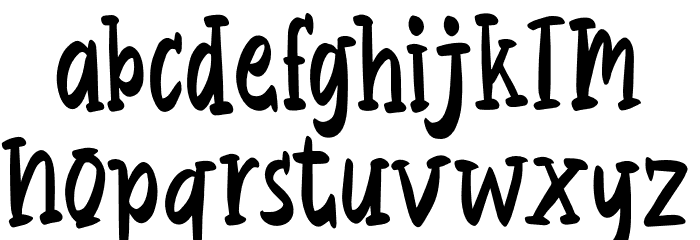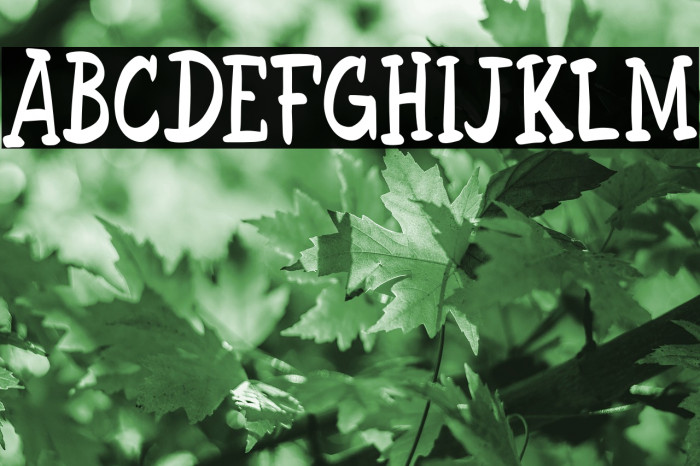
BrigitaFREE Font
This font features a playful and whimsical style, characterized by its bold and slightly irregular letterforms. The strokes are thick and rounded, giving it a friendly and approachable appearance. The uppercase letters are tall and slightly narrow, while the lowercase letters maintain a consistent height with a slight slant, adding to the casual feel. The overall design is reminiscent of hand-drawn lettering, making it suitable for projects that require a personal touch. The font includes a full set of uppercase and lowercase letters, numbers, and a selection of special characters, ensuring versatility in various design applications.
A playful, hand-drawn style font with bold, rounded strokes.
- Proposed Projects: Ideal for children's books, greeting cards, playful branding, and casual invitations.
- Category: Handwritten
- Use Case: Headlines, Logos, Informal Text